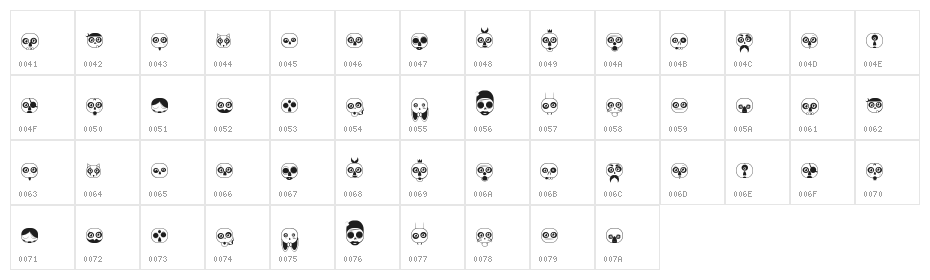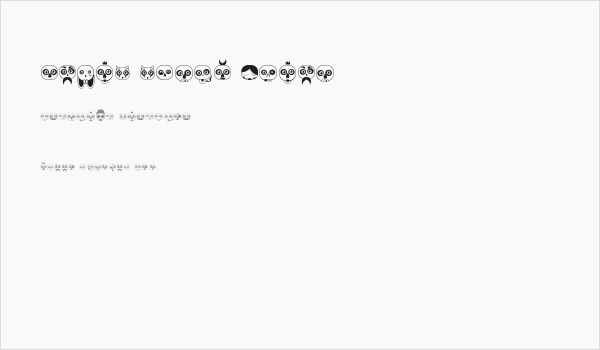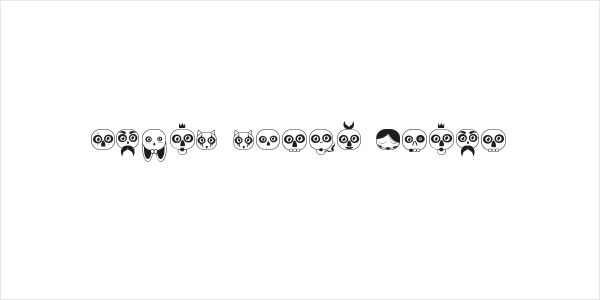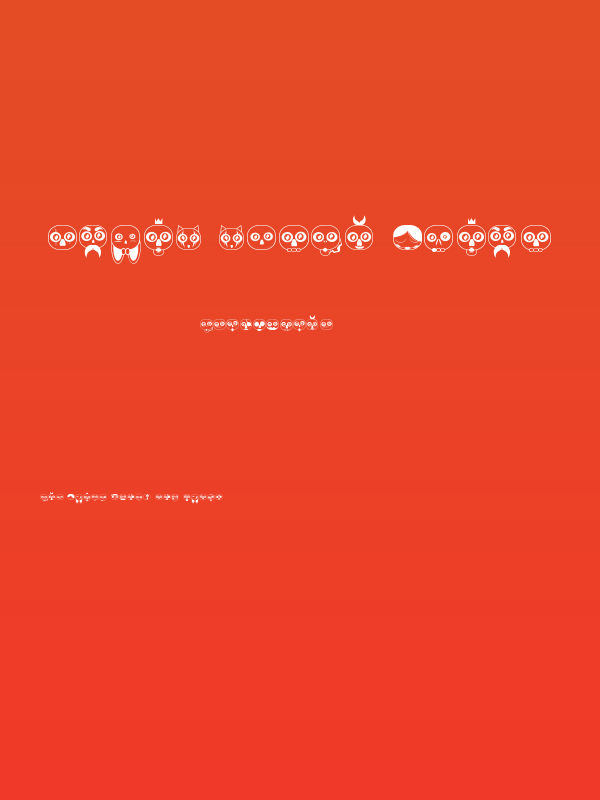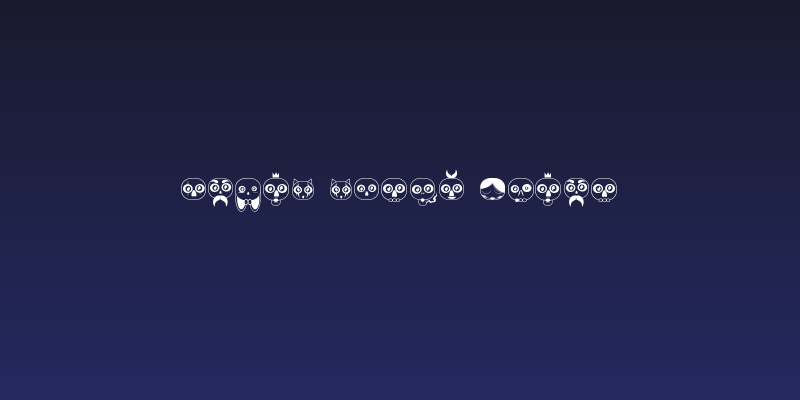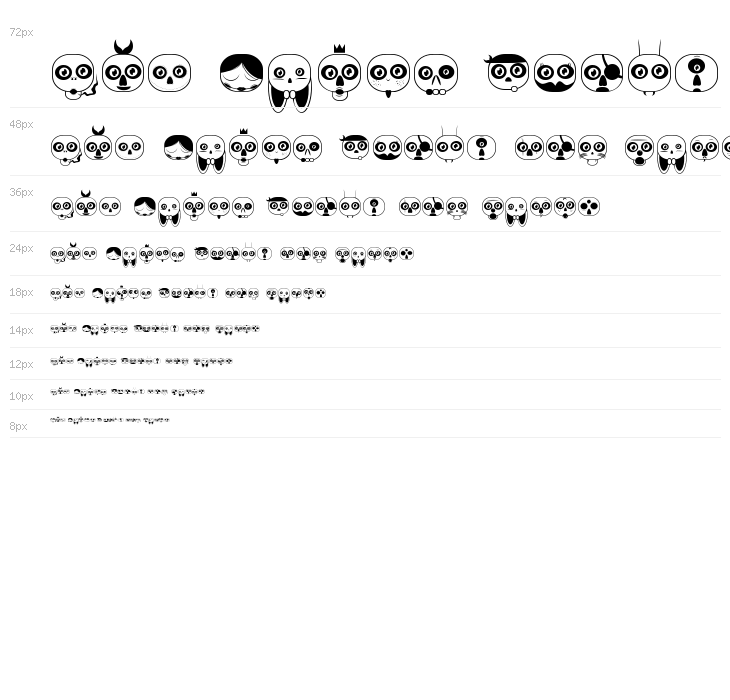
Fluid Death Qkila Font
Fluid Death Qkila Description
This set of characters is a playful and whimsical collection of illustrated faces, each with unique expressions and features. The characters are designed with bold, thick lines and a monochrome palette, giving them a striking appearance. Each face is distinct, featuring elements like hats, glasses, and various facial hair styles, adding personality and charm. The overall design is reminiscent of cartoon or comic styles, with exaggerated features and a sense of humor. This collection is not a traditional font but rather a series of decorative icons or emoticons that could be used to add a fun and quirky element to creative projects.
| Overall Style | Playful, Cartoonish |
| Use Case | Decorative elements, Graphic design, Branding |
| Proposed Projects | Ideal for use in graphic design projects, children's books, playful branding, or as decorative elements in digital media. |